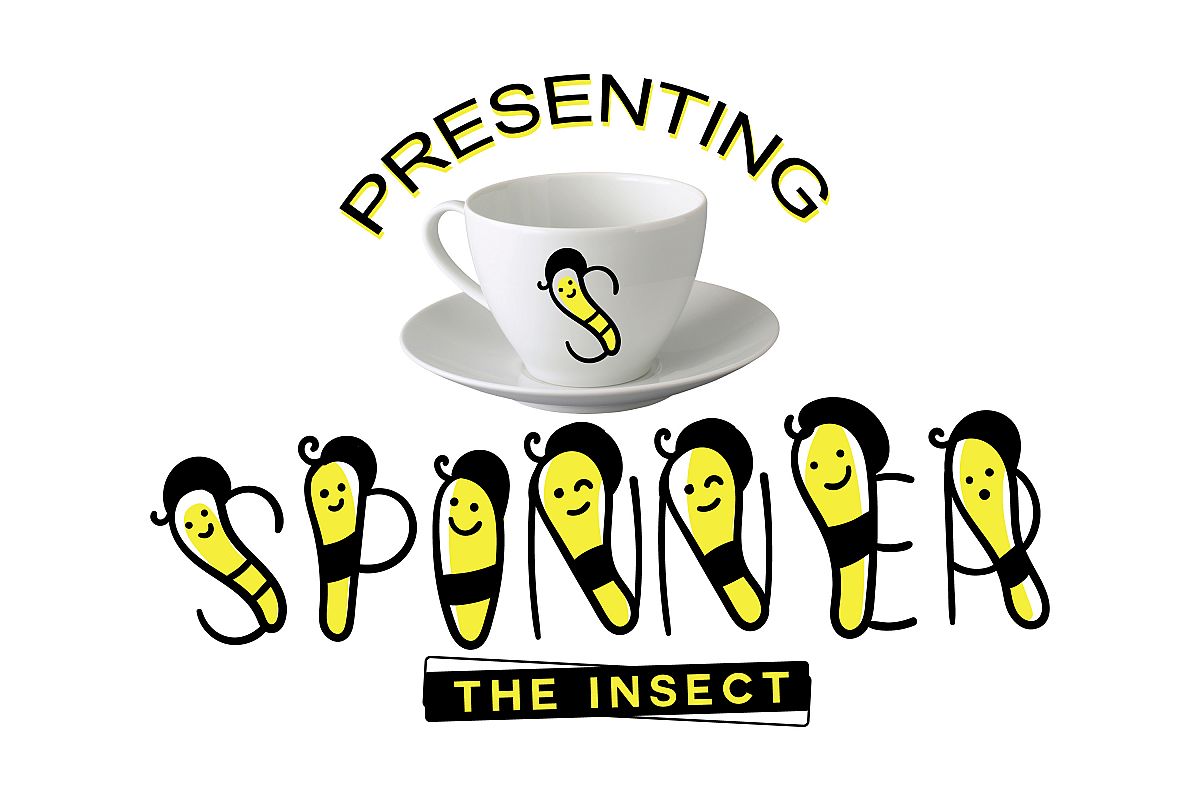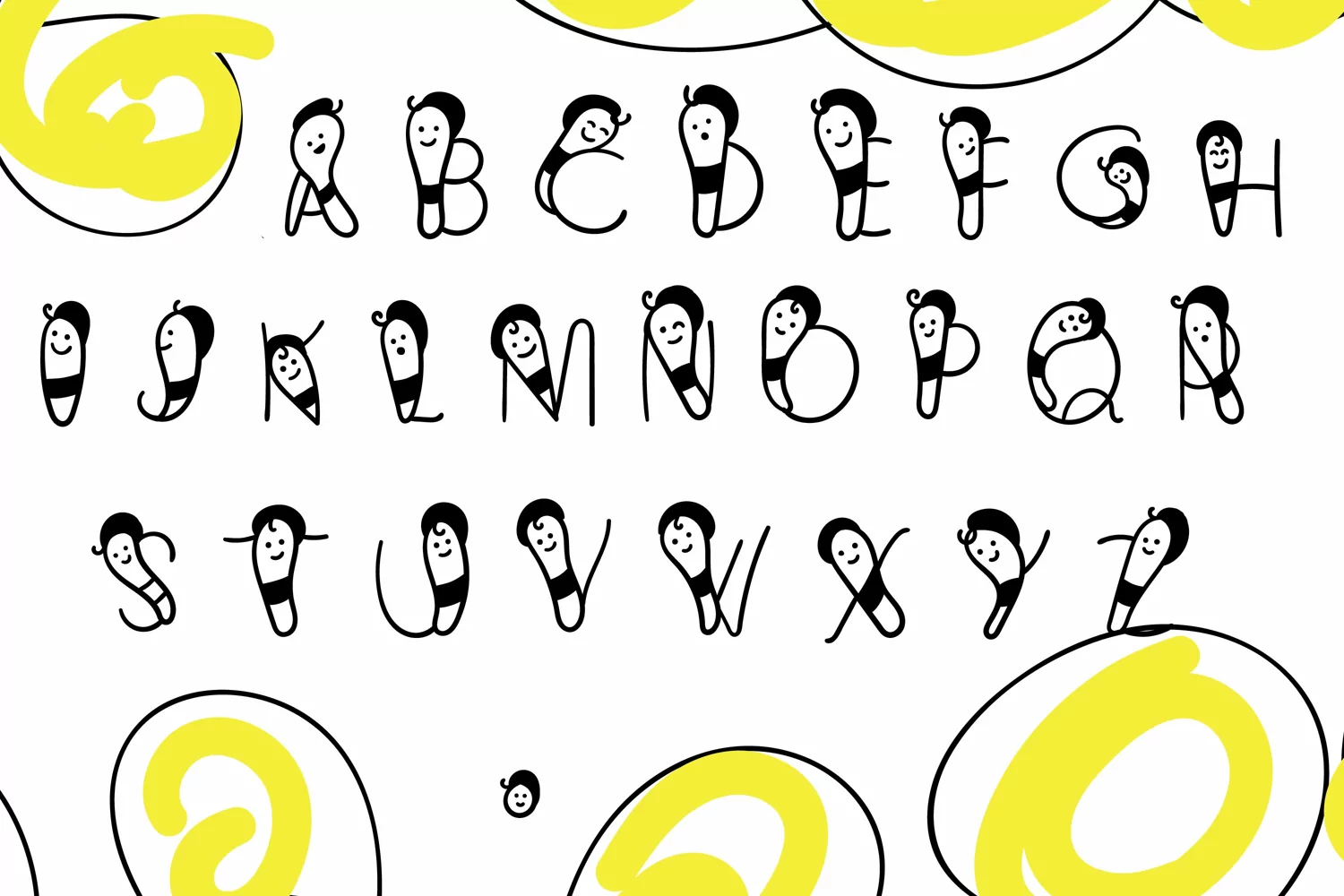
Spinner the Insect Font - A Cute Typo for Kids Stories
a cute insect font is ready for you to make amazing funny projects, kids classroom decoration, even for shirts and cups! this will make everyone day when they see's it!
1- Cute Insect shape hand drawn alphabets